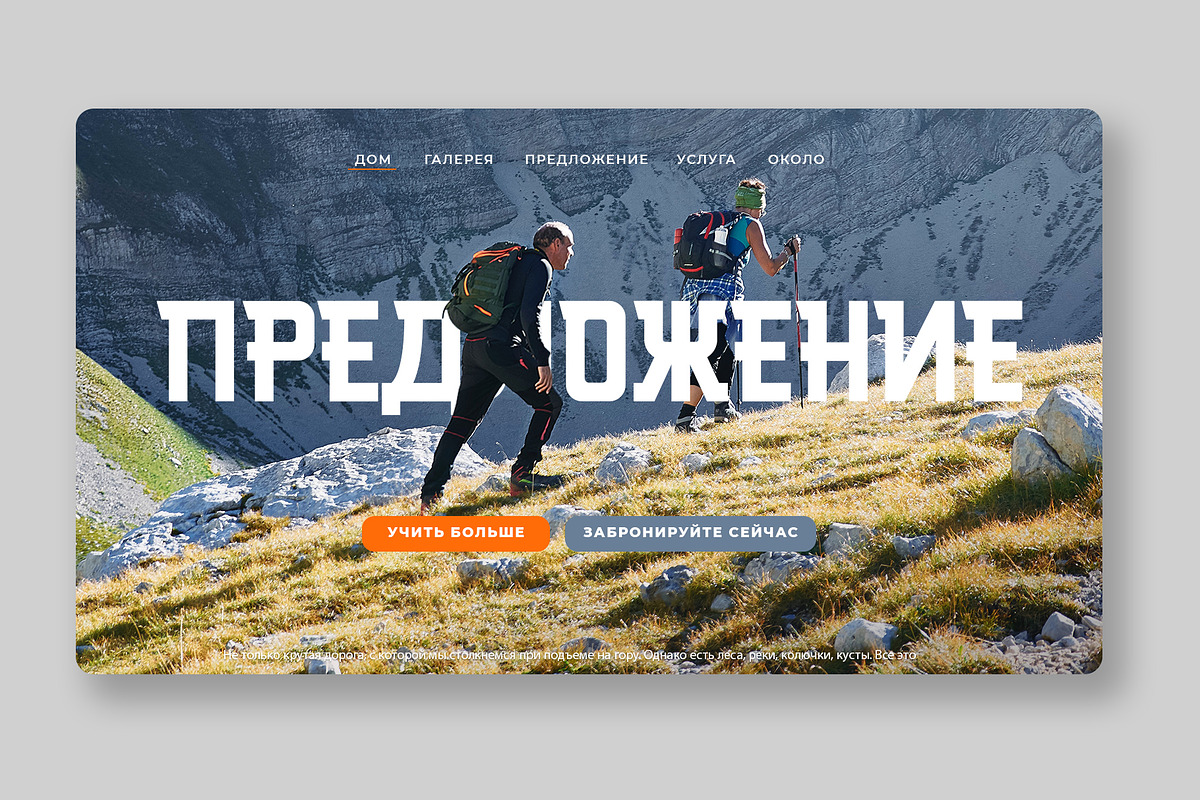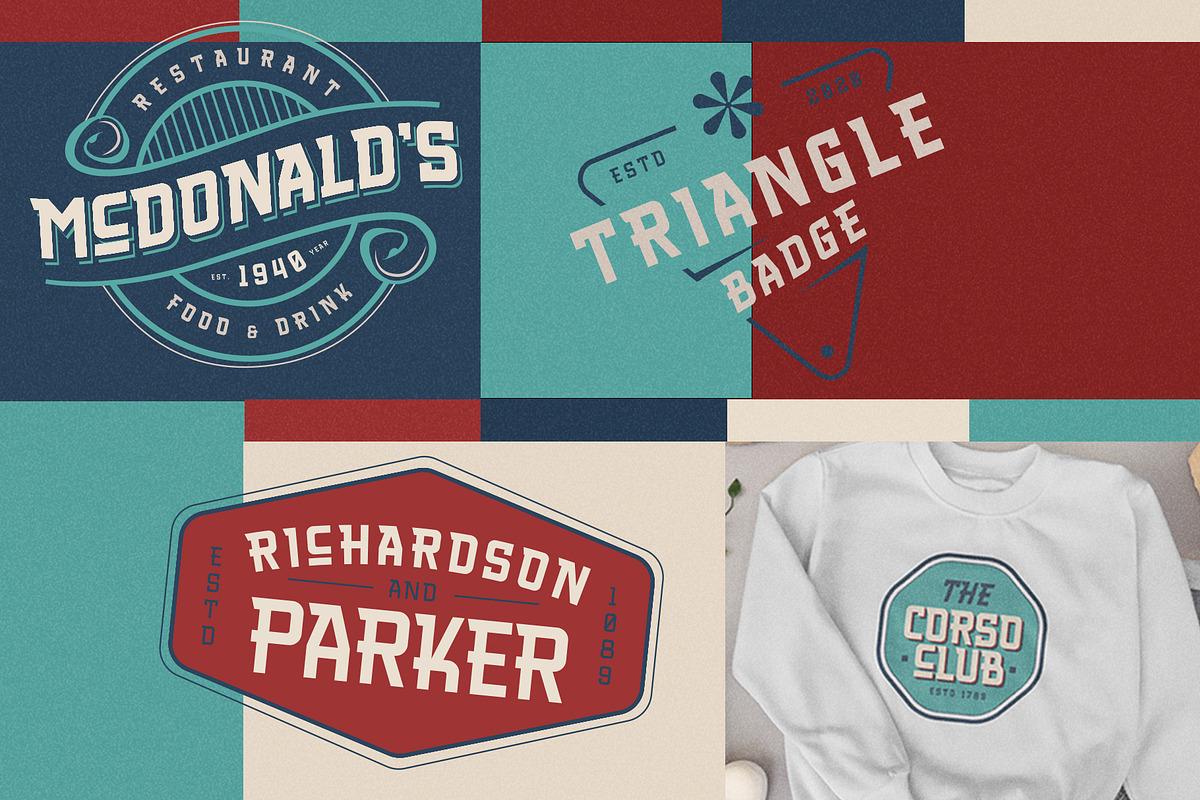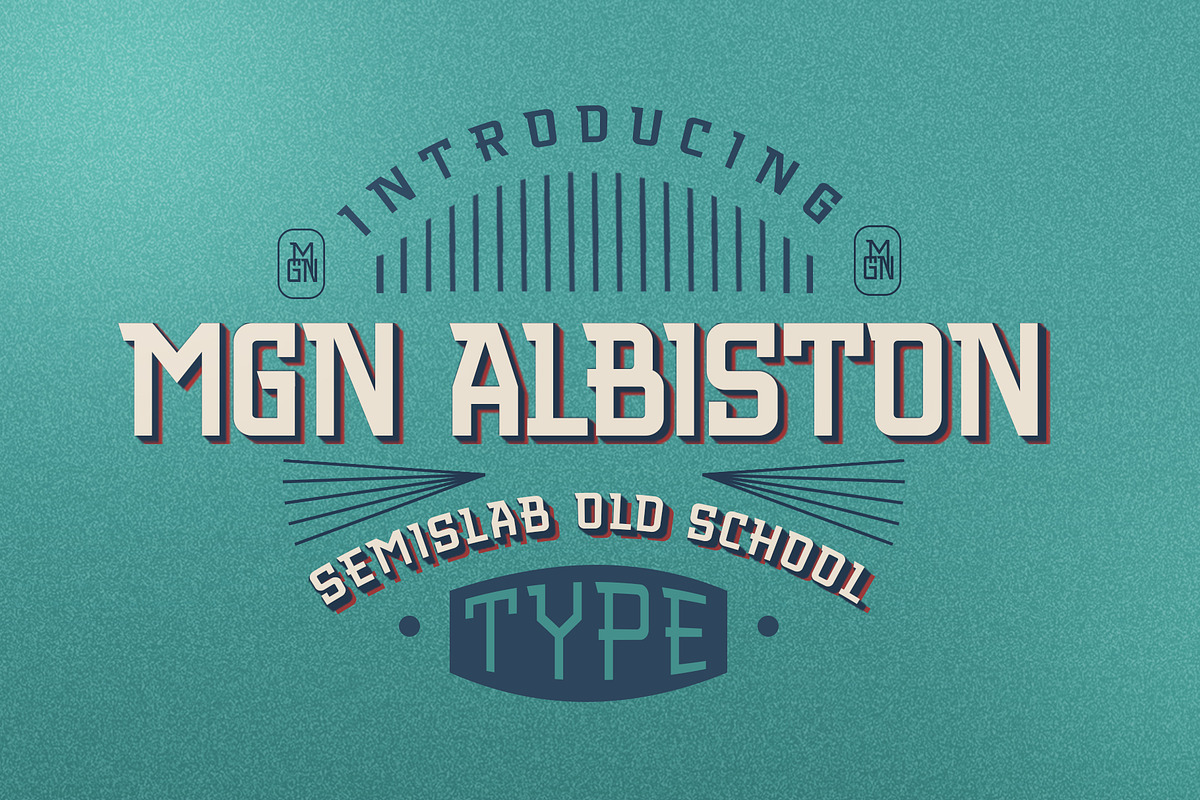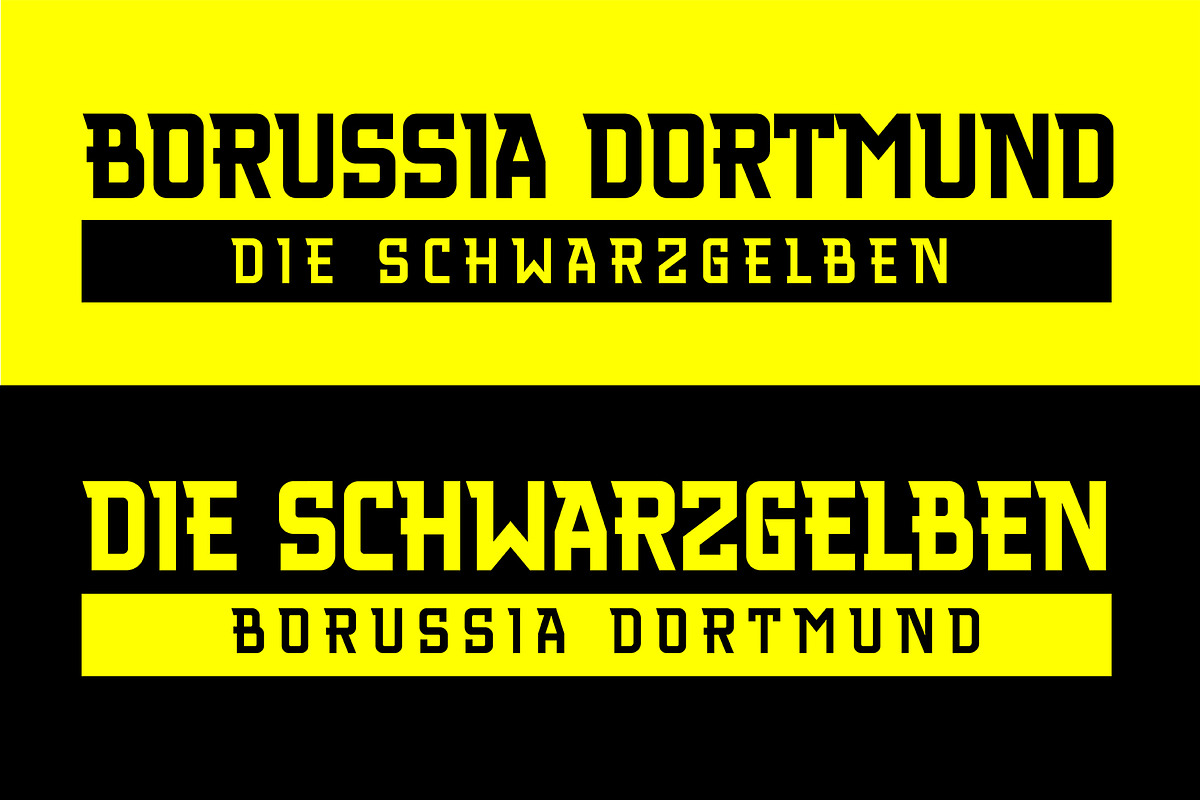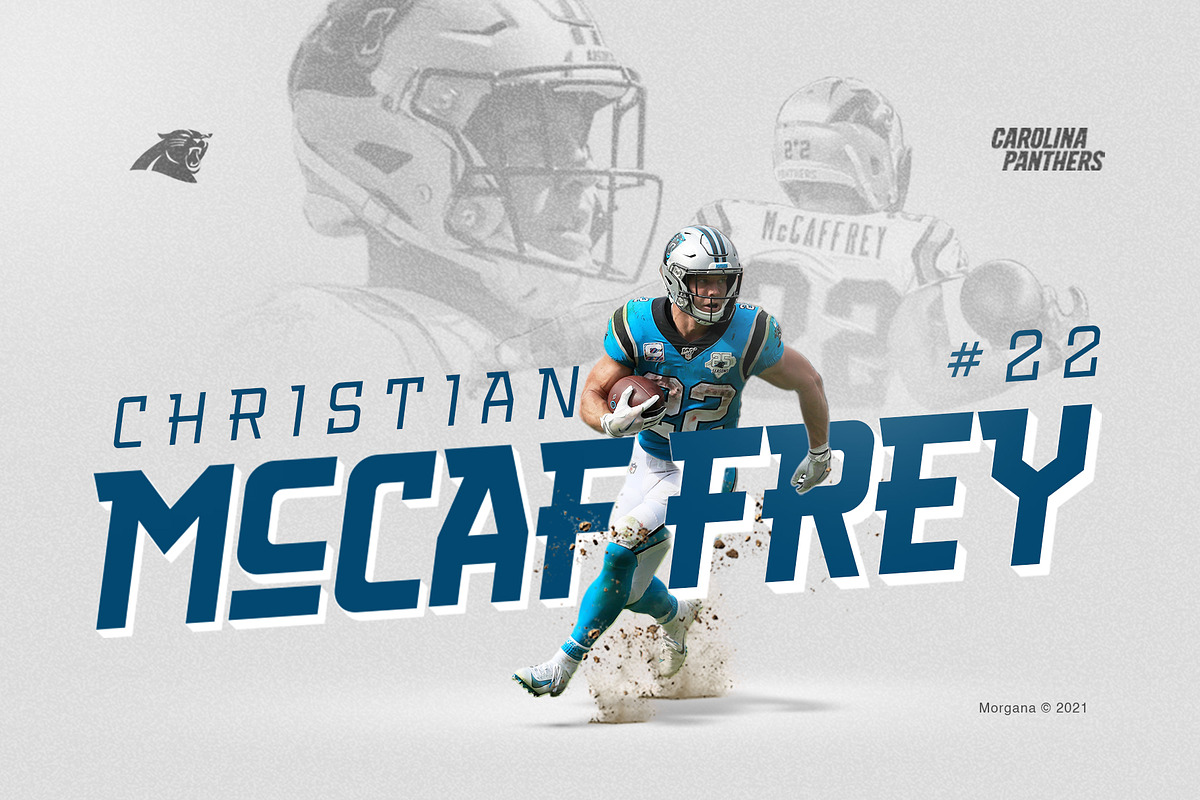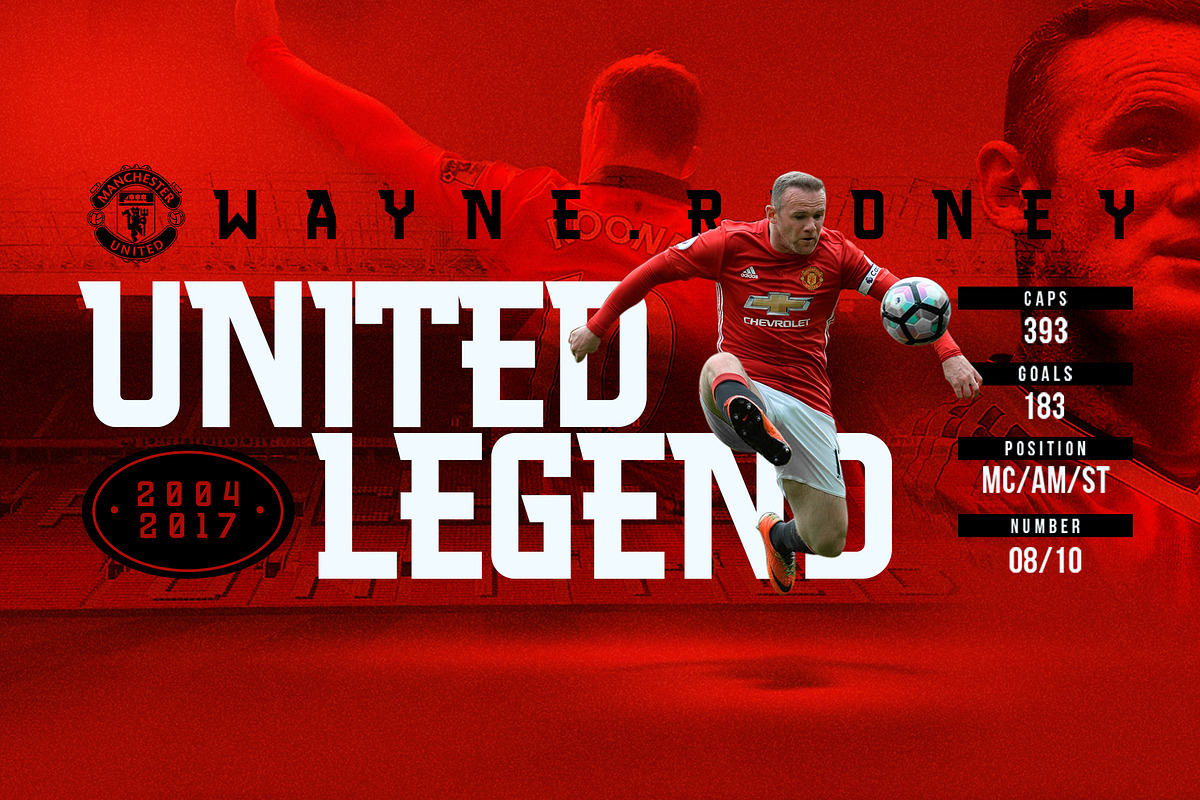
MGN Albiston
MGN Albiston is a condensed display typeface that we designed with a strong and sporty look. It is perfect for headlines, posters, and logos. The condensed form gives it a compact and powerful appearance, making it stand out in any design. The serif touches on certain parts of the letters give it a classic touch, adding complexity to its overall impression.
This typeface is suitable for various design projects, such as sports branding, fashion, and entertainment. It has a versatile and dynamic look that can add a bold touch to any project. Give it a try and see how it can enhance your designs.